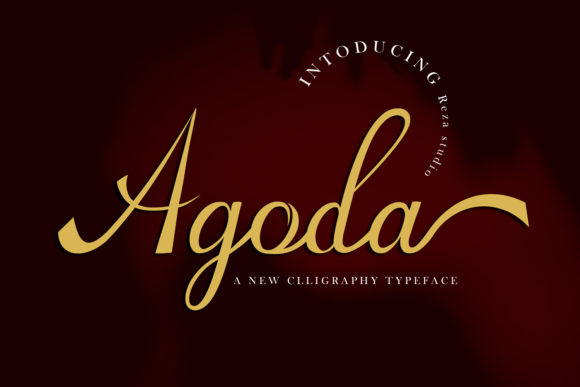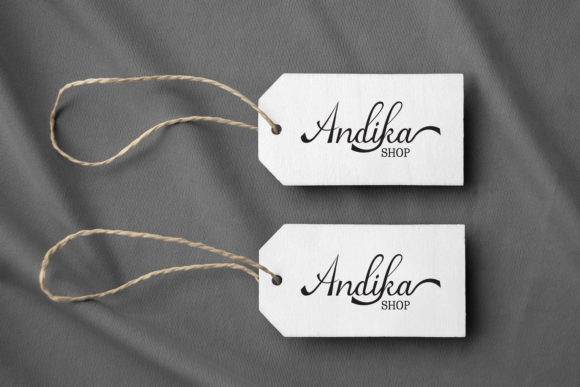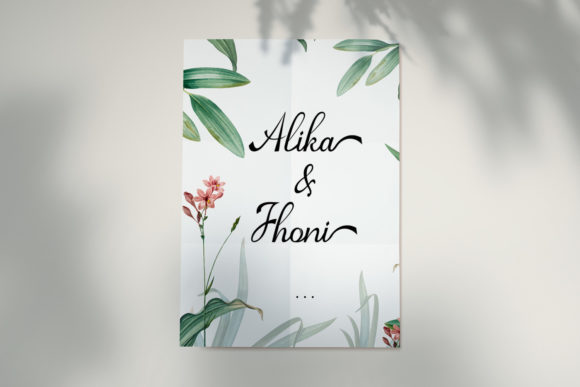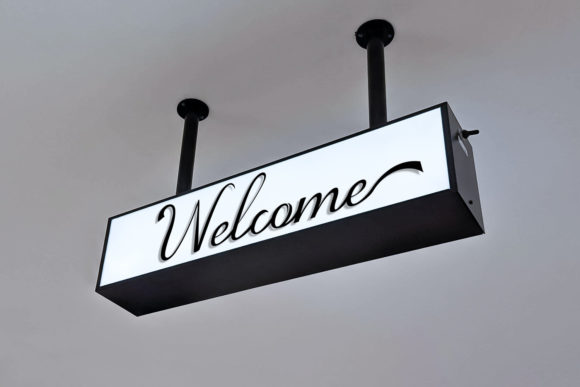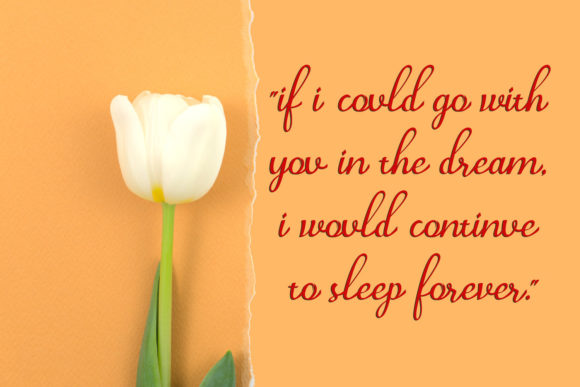
Agoda Font
About Agoda Font
Agoda is a stunning script font that exudes style, class, and delicacy. With its clean, thin, and smooth vibe, it adds an elegant touch to any design it is applied to.
The stylish and sophisticated nature of Agoda makes it a perfect choice for a wide range of projects. Whether you’re creating logos, branding materials, invitations, or any other design, Agoda will elevate your work and leave a lasting impression.
One of the standout features of Agoda is its PUA encoding, which allows easy access to all of the beautiful glyphs and swashes. This gives you the freedom to customize and enhance your designs with unique and decorative elements, making your creations truly unique.
The clean and thin lines of Agoda create a sense of elegance and refinement. The smooth curves and balanced letterforms add a touch of grace and sophistication, making Agoda suitable for both formal and creative applications.
Agoda’s versatility shines through in its ability to adapt to different design styles and themes. Whether you’re aiming for a modern and minimalistic look or a more ornate and decorative style, Agoda can effortlessly complement your vision.
Furthermore, Agoda’s legibility ensures that your message is effectively communicated. Even with its delicate and stylish appearance, each letter is crafted to be easily readable, making it suitable for both display and body text.
By incorporating Agoda into your design projects, you can achieve a high-end and refined aesthetic. Its stylish and classy nature, combined with its PUA encoding for easy customization, provides you with the tools to create stunning and unique designs.
So, whether you’re designing luxurious branding materials, elegant wedding invitations, or any other project that requires a touch of sophistication, let Agoda be your go-to font to add that extra level of style and elegance.